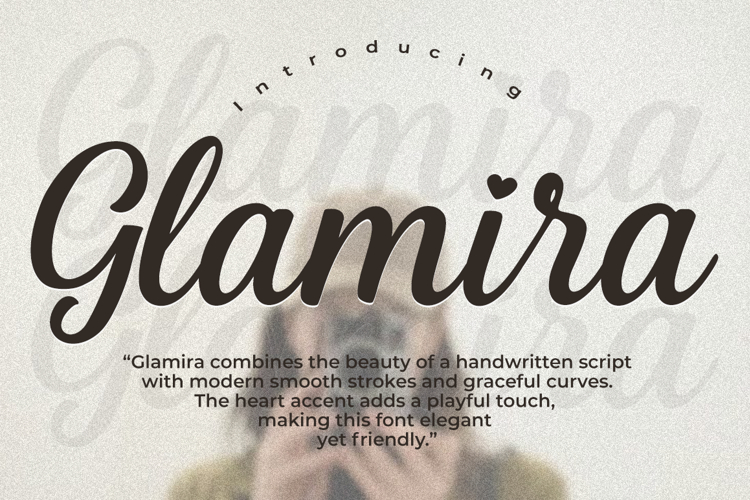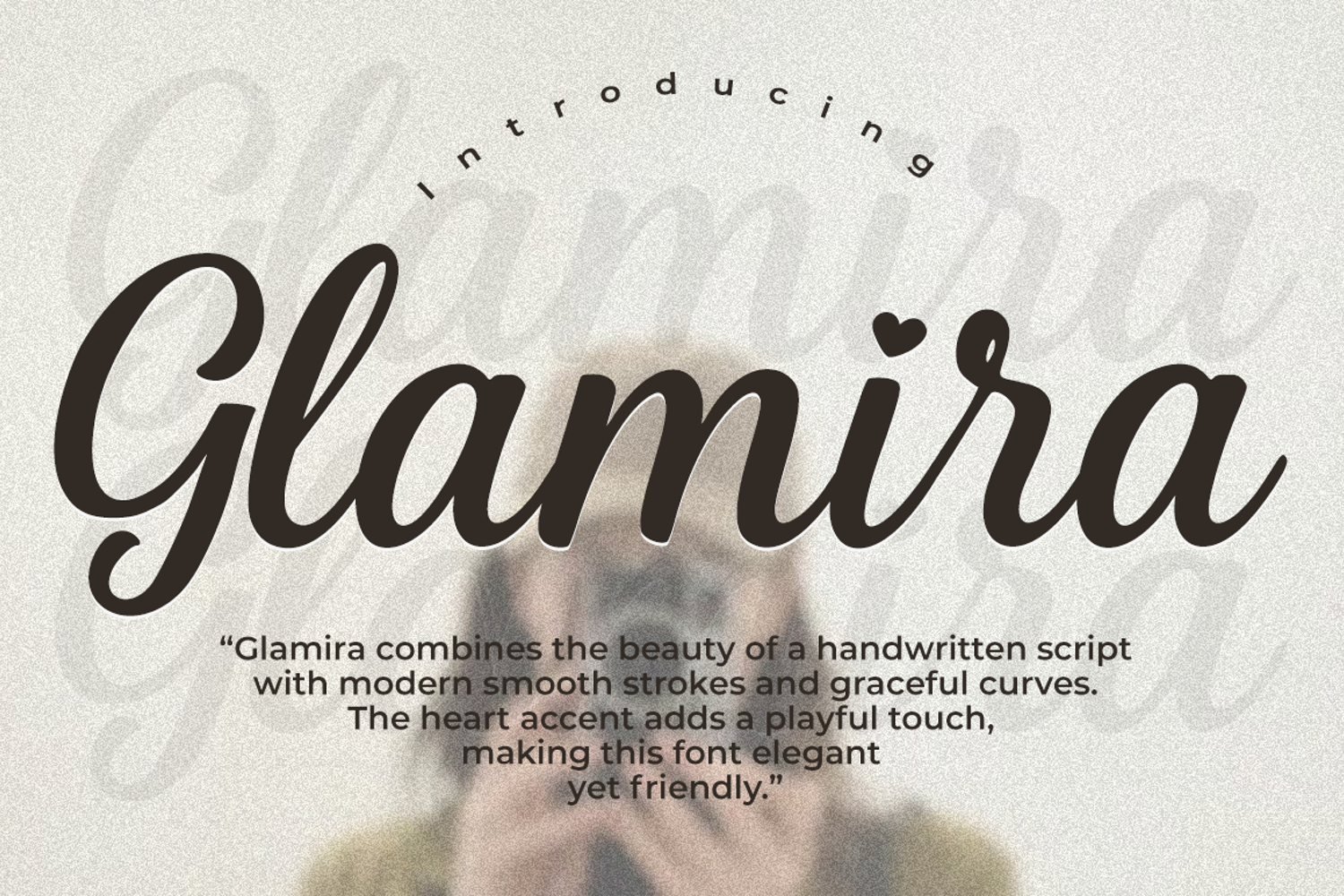
Simple stylish
"Glamira is a modern script font featuring smooth strokes, charming heart details, and an elegant romantic touch. Its versatile design makes it perfect for branding, invitations, logos, packaging, and social media, bringing a refined and stylish look to any project."